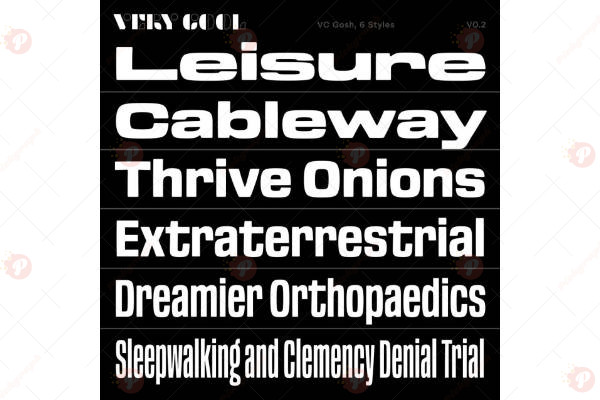
The Gosh Font Free is a fun and playful handwritten typeface that brings a casual, friendly, and creative vibe to your designs. With its organic strokes and natural handwriting feel, this font is perfect for posters, quotes, invitations, greeting cards, branding, and social media graphics.
Its youthful and modern style makes it stand out in creative projects, whether you’re designing for DIY crafts, lifestyle blogs, or fun product packaging. Gosh Font Free combines charm and readability, making it a versatile choice for designers.
Typeface: Handwritten / Display
Style: Playful / Fun / Creative / Casual
Perfect for: Quotes, Posters, Invitations, Greeting Cards, Social Media Posts, Branding, Lifestyle Blogs, Packaging
Bring fun, creativity, and personality to your projects with the Gosh Font Free.